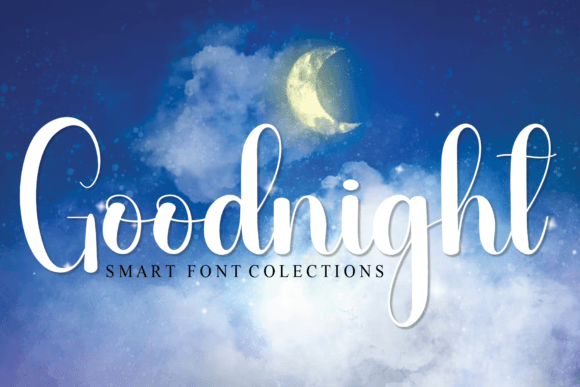
Looking for the perfect font to add a special touch to your wedding invitations? Look no further than Goodnight Font! Created by William Jhordy, this script font is the perfect addition to any wedding stationery.
With its sweet and friendly handwritten style, Goodnight Font is fresh, neat, and sure to catch the eye of anyone who sees it. Whether you're looking for a font that's perfect for wedding rings or just want to add a touch of fun to your designs, Goodnight Font is the perfect choice.
One of the best things about Goodnight Font is its versatility. It's perfect for writing wedding invitations, cards, or any other design that needs a little bit of personality. And with its keyword "Best Font For Wedding Rings," you can be sure that you're getting a font that's perfect for your big day.